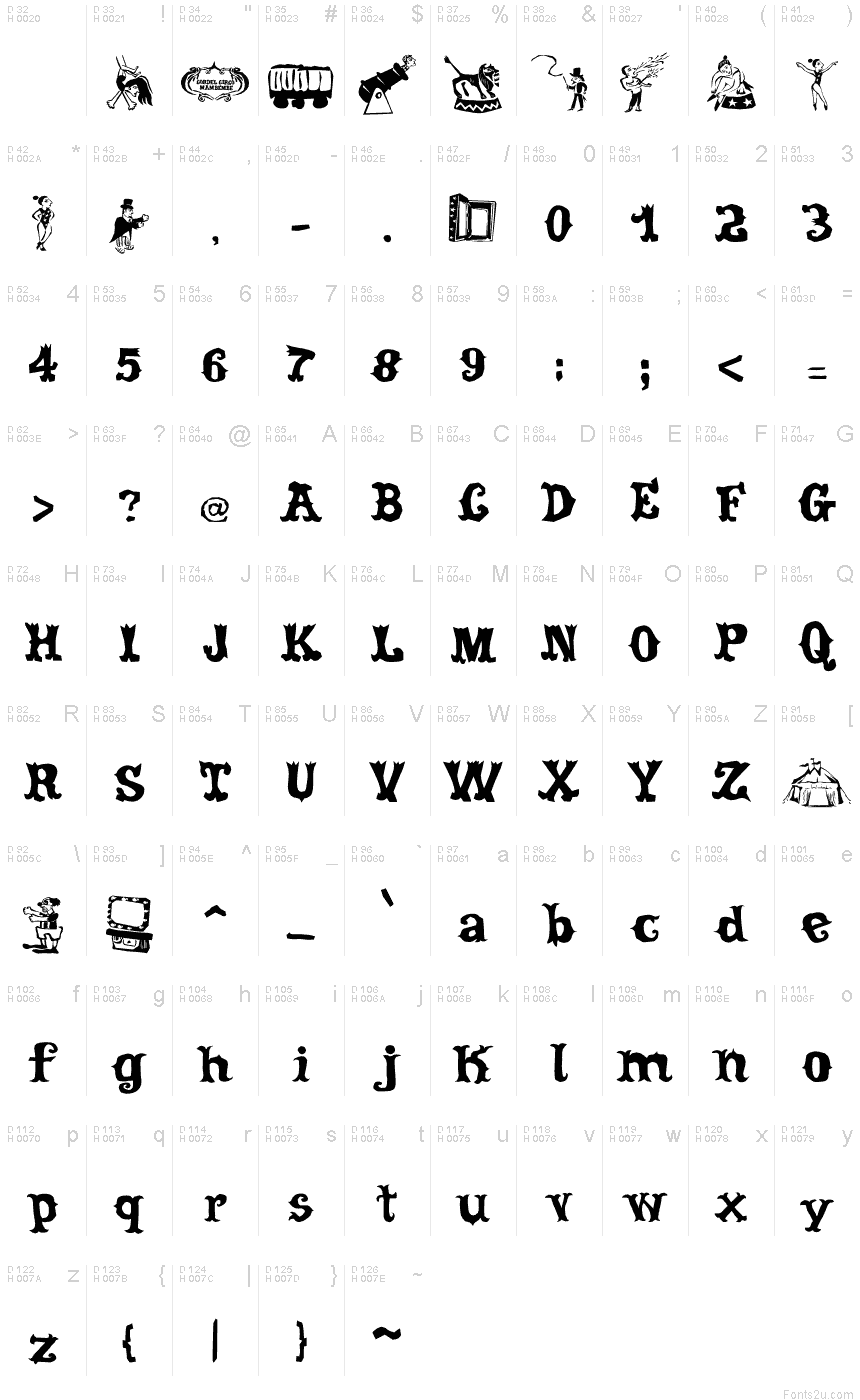
Cordel Circo Mambembe by Galdino Otten is a free circus-style cartoon display font with stout, uneven letters. Bulging curves and blunt, crooked serifs give the lettering a hand-cut silhouette. Each shape feels deliberately off-kilter.
Its traveling-show character suits carnival posters, children's book covers, and game graphics built around comic spectacle. It also fits playful snack packaging, with the same lumpy contours linking entertainment and food designs to sideshow signs and illustrated fairground props.